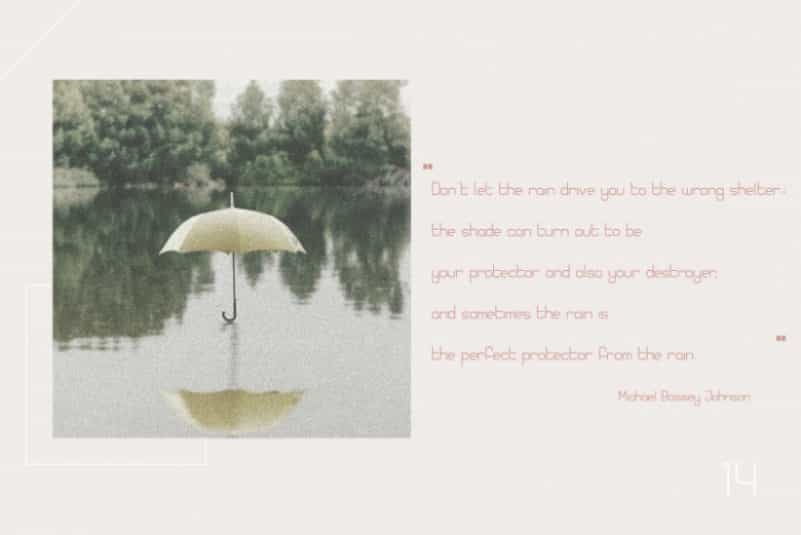
Introducing Bolula Font. A refined, unpretentious and lightweight sans serif font that can transform any design project into an elegant art. Ideal for the branding projects, homewares designs, product packaging, magazine headers or even for a stylish text overlay on any background image.